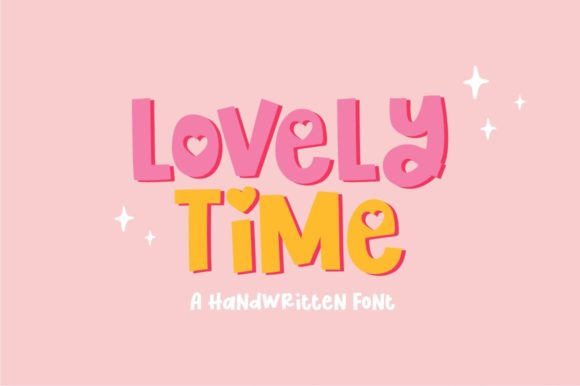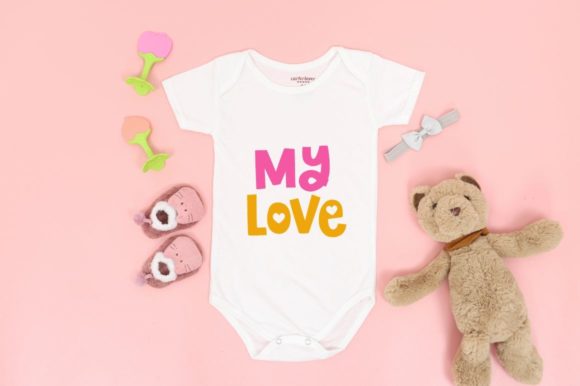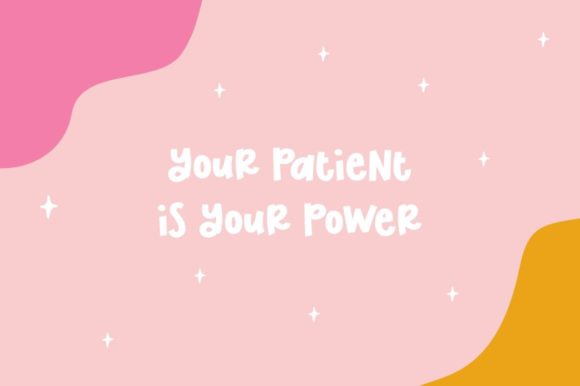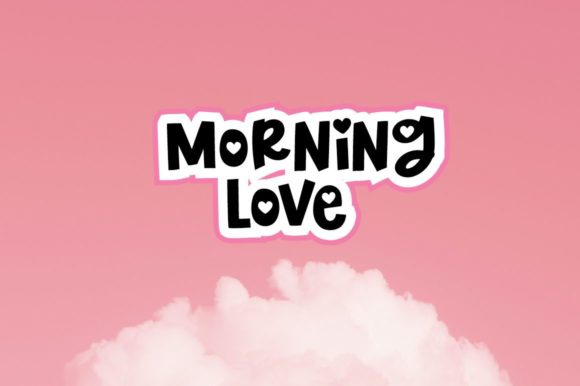
About the Lovely Time Font
Unleash your creativity with Lovely Time Font, a versatile font perfect for a wide range of applications. Lovely Time is a playful and cute typeface perfect for any quirky design work! These cute fonts are made by hand and with great love! It is suitable for you to use in making t-shirt design, quote, labels, packaging, logotype, mugs, and more!
Lovely Time’s playful character makes it ideal for projects requiring a lighthearted touch, such as children’s books, branding for confectionery, or packaging for whimsical products. It excels in headlines, short text blocks, and logos where its charming details shine. However, its low x-height and decorative elements make it less suitable for body text or UI elements where readability is paramount.
The font’s overall personality is undeniably cheerful and friendly, lending itself well to brands focused on youthfulness, creativity, or handcrafted goods. Avoid using it for projects requiring sophistication or seriousness.